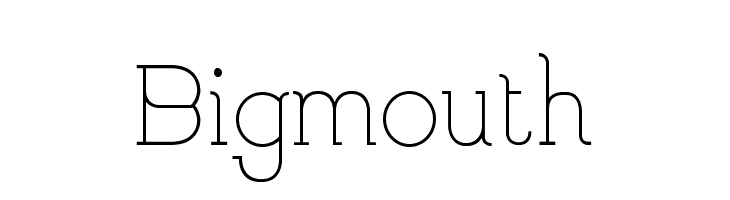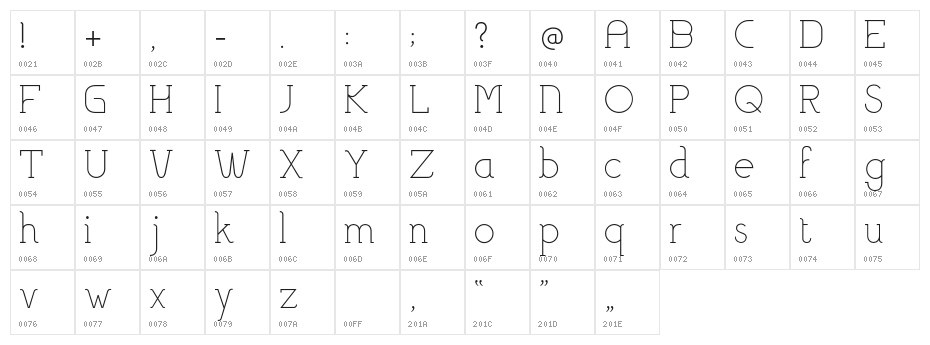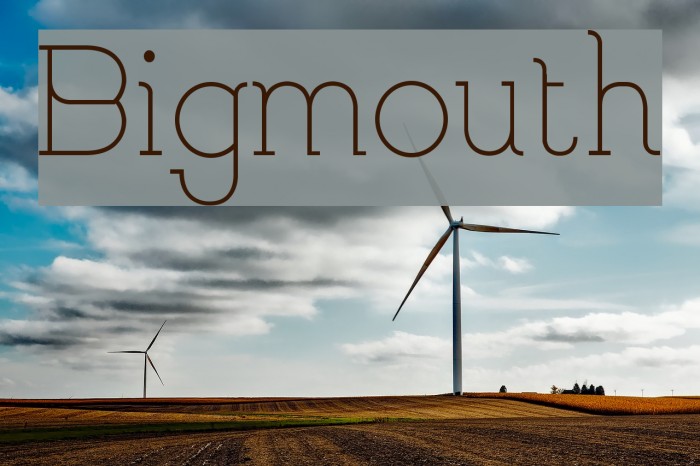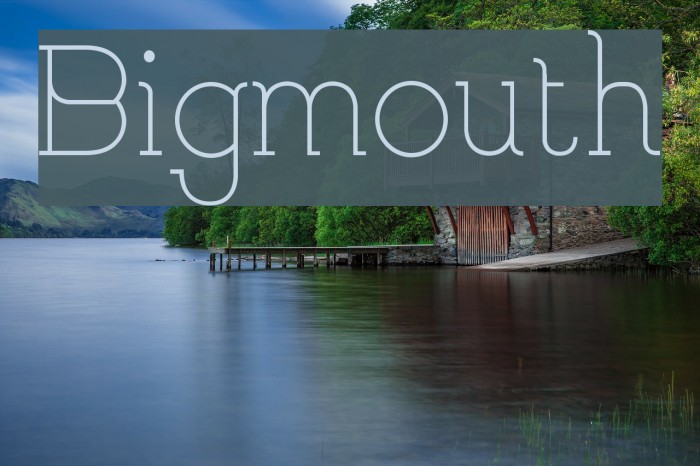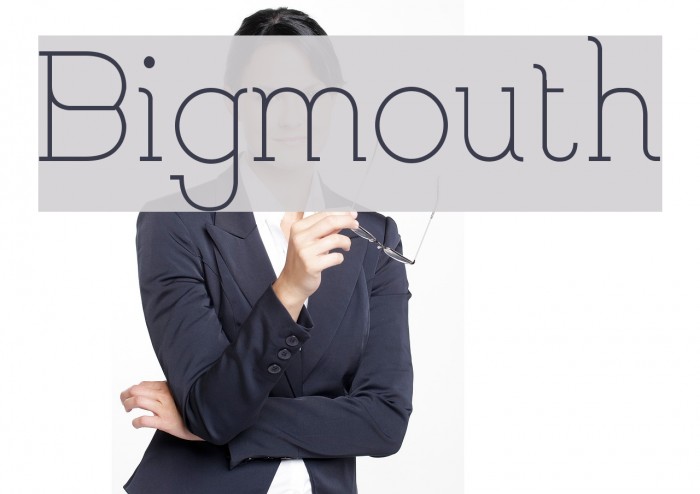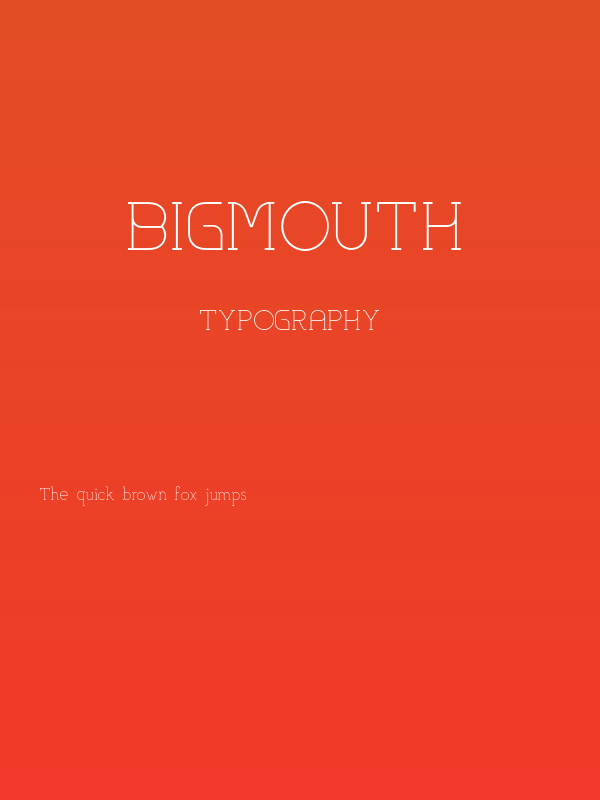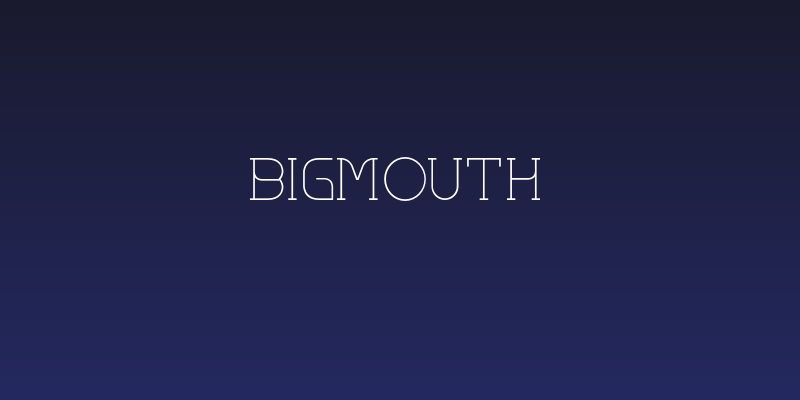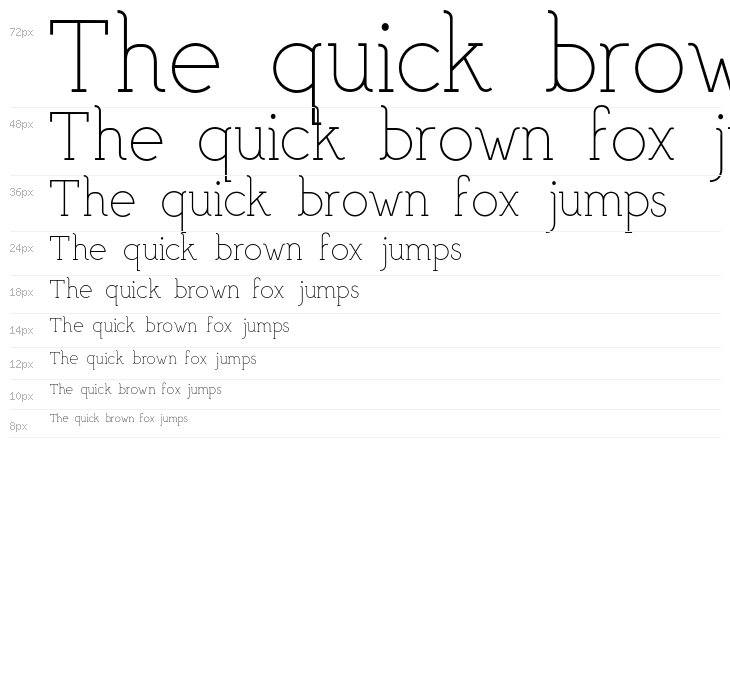
Bigmouth Font
Bigmouth Description
This font features a unique blend of geometric and modern elements, characterized by its thin, clean lines and open curves. The uppercase letters exhibit a distinct architectural feel with their angular forms, while the lowercase letters maintain a more rounded and approachable appearance. The font's minimalistic design is complemented by its consistent stroke width, which provides a harmonious and balanced look. The special characters, including punctuation marks, are designed with the same attention to detail, ensuring uniformity across all glyphs. This font's simplicity and elegance make it versatile for various design applications.